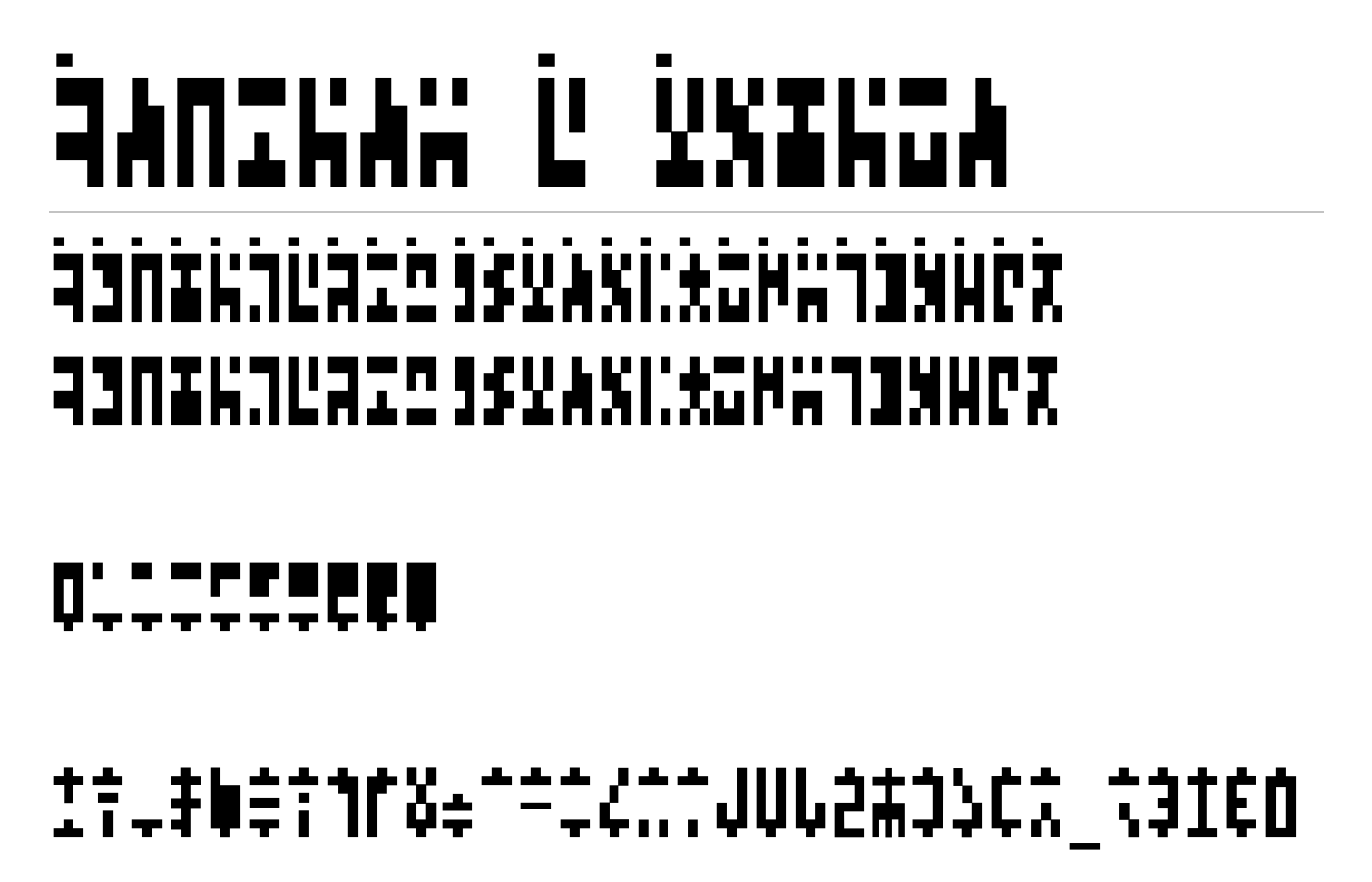
Ancient G Modern is a bold, geometric sans-serif font with a strong, blocky appearance that evokes a futuristic and digital feel. Its condensed and rigid letterforms feature consistent stroke widths and a pixelated style, making it ideal for designs seeking a tech-savvy, modern, or sci-fi aesthetic. This font works best in eye-catching headlines, logos, and digital-themed projects that want to convey a sense of innovation and strength.
Ancient G Modern Font
About Ancient G Modern Font